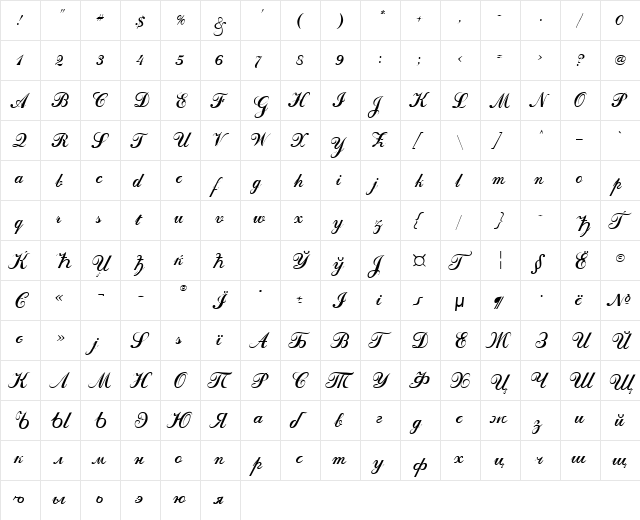
Bulgarian Kursiv Italic
Design Context for Bulgarian Kursiv Typeface
Bulgarian Kursiv is a composed and adaptable typeface that performs quietly and consistently across a wide range of design contexts. The dynamic lean of this cut emphasises speed and emphasis in any layout.